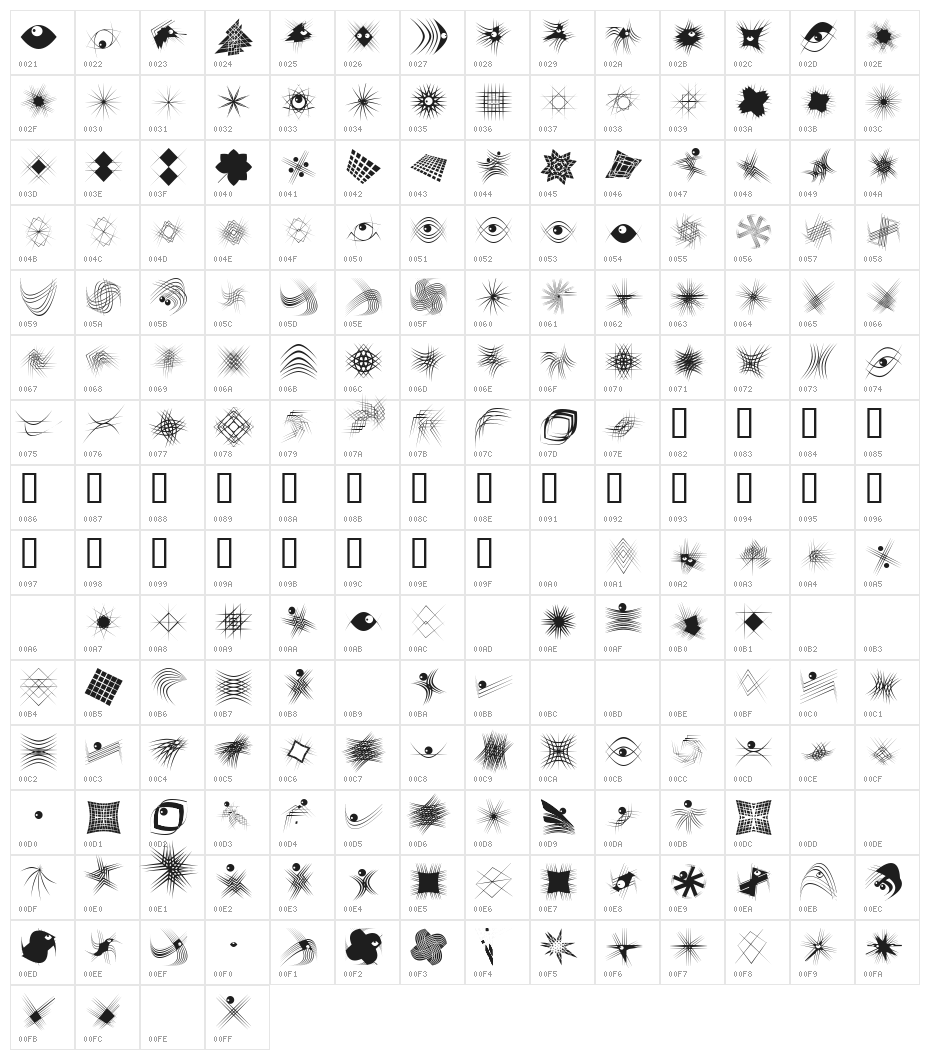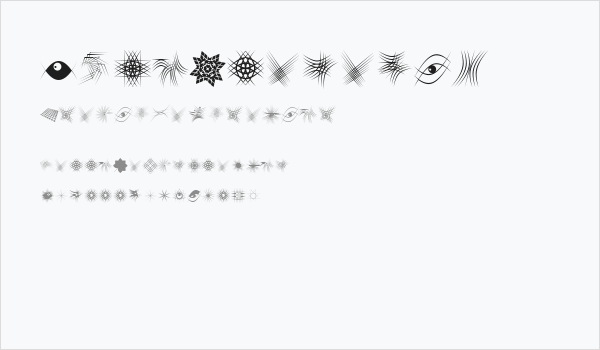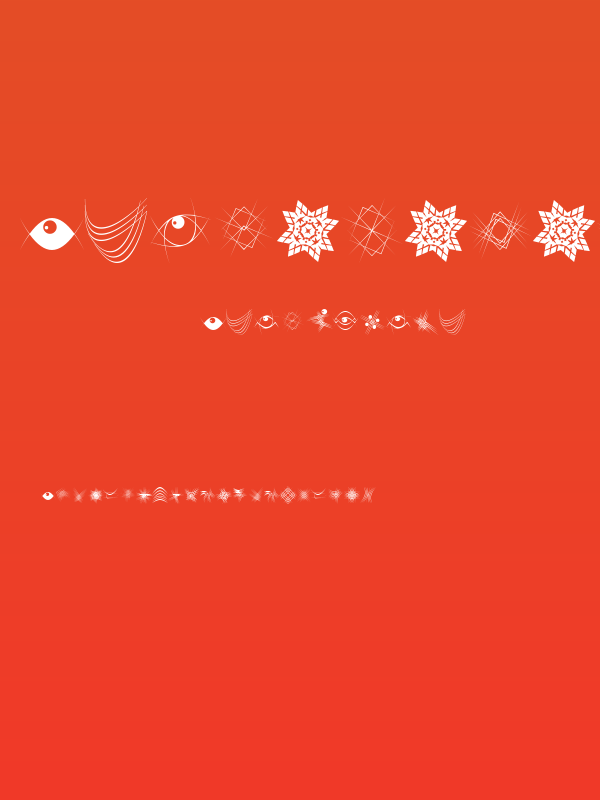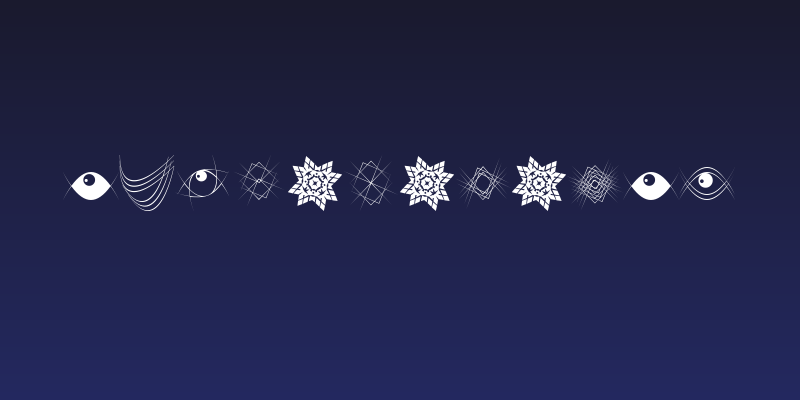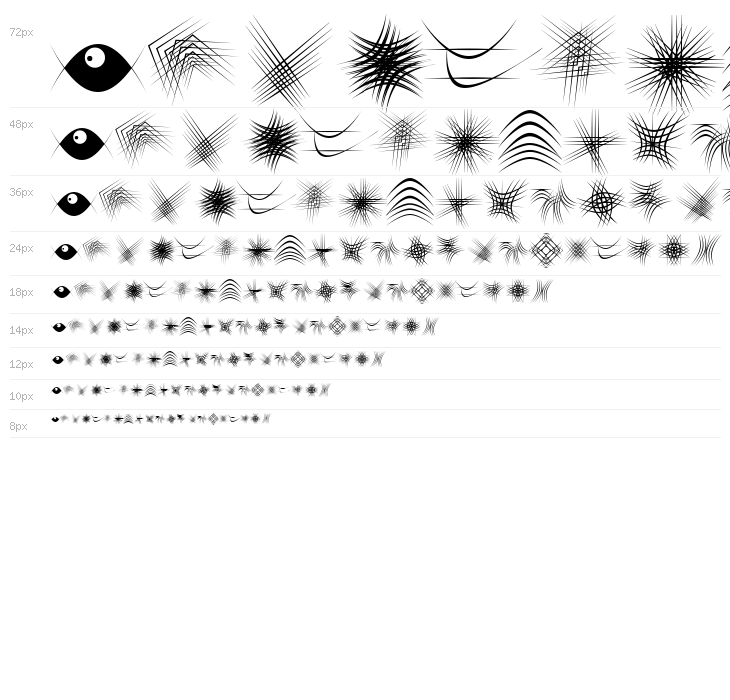
TypoElements Font
TypoElements Description
A collection of abstract, geometric, and illustrative glyphs featuring lines, grids, starbursts, eyes, and various dynamic shapes, each character is a unique decorative element rather than a traditional letterform.
| Overall Style | Decorative, Abstract, Experimental |
| Use Case | Logos, Posters, Visual Art, Branding, Display Typography |
| Proposed Projects | Posters, album covers, branding for creative industries, digital art, experimental typography, visual identity systems. |